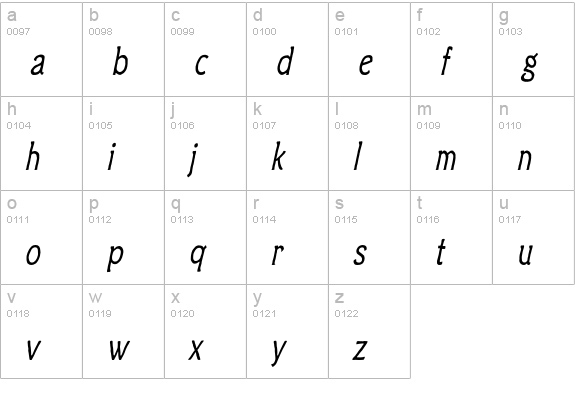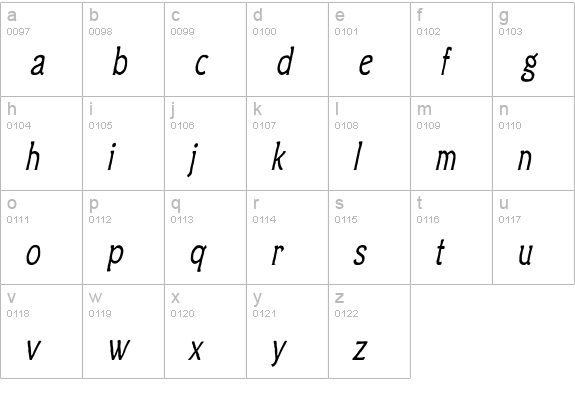
ClicheeOblique Font Details
Introducing ClicheeOblique font, a versatile and stylish typeface that effortlessly blends classic elegance with a modern twist. With its sleek lines and subtle curves, this font adds a touch of sophistication to any project, whether it's a sleek logo design, elegant wedding invitation, or eye-catching poster. ClicheeOblique font is the perfect choice for designers looking to elevate their work with a touch of finesse and flair. Its unique oblique style adds a sense of movement and dynamism to text, making it a standout choice for headlines and titles. Whether you're creating a fashion magazine spread or a chic branding project, this font is sure to make a statement. Best of all, ClicheeOblique font is available for free download at FontsMarket.com. So go ahead and elevate your designs with this exquisite typeface today!